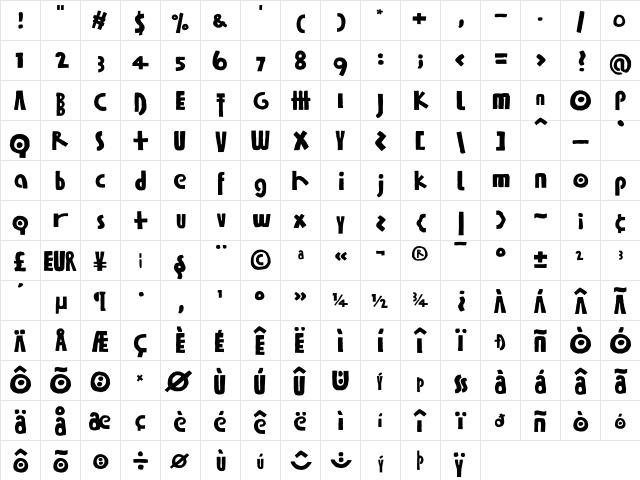
Kurt Bold
Design Context for Kurt Typeface
Kurt is a composed and adaptable typeface that performs quietly and consistently across a wide range of design contexts. The heavy weight commands attention and anchors typographic hierarchies.